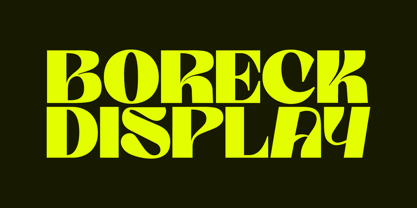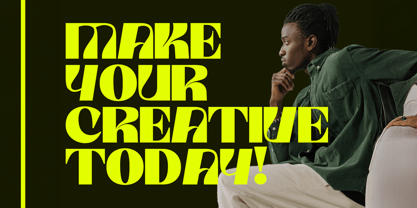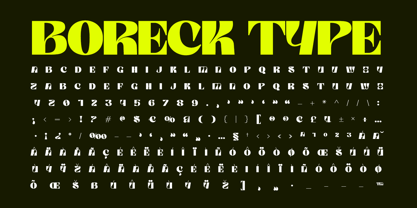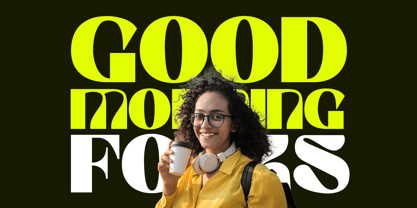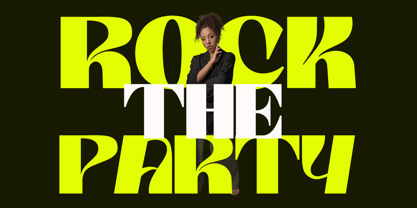
Boreck Display
The Boreck Display Font Family was designed by Evin Tony and published by FoxType. Boreck Display contains 1 styles. More about this family
Introducing Boreck, a modern and eye-catching display font crafted for maximum visual punch. Perfectly suited for posters, magazine covers, headlines, banners, and any design that needs to grab attention, Boreck brings bold character and clean aesthetics to your creative work.
With its powerful presence and strong lines, Boreck adds personality to your typography while maintaining clarity at large sizes. Whether you're designing for print or digital, Boreck ensures your message stands out.
Ideal for:
Magazine & editorial covers
Posters & promotional banners
Branding and packaging
Event flyers & signage
Digital ads and web headers
Make a bold statement with Boreck – where modern design meets confident display type.